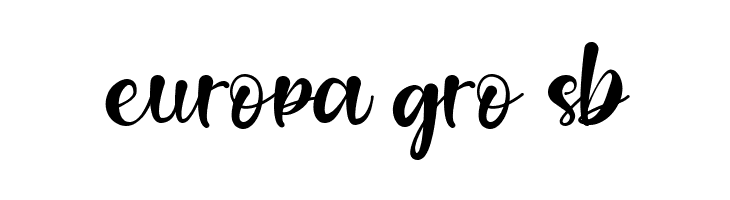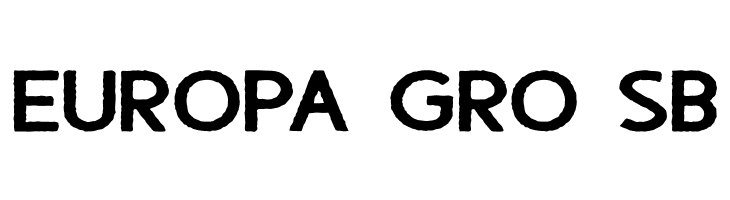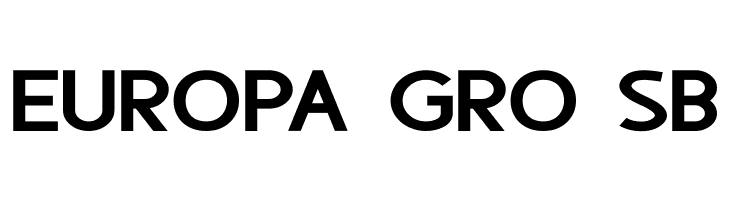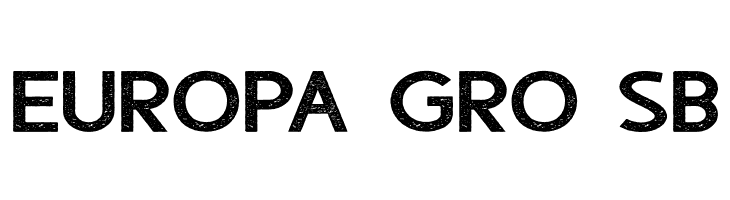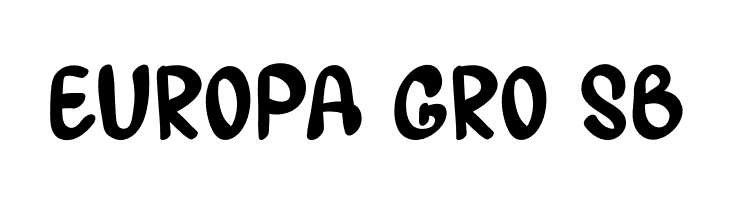
A dynamic, expressive handwritten font with fluid strokes and a natural flow.
A bold, playful font with rounded, hand-drawn uppercase letters.
A bold, modern sans-serif font with clean, geometric lines.
A bold, hand-drawn font with a rough, distressed texture.
A bold, textured font with a vintage, distressed stamp-like appearance.
A bold, textured font with a handcrafted, vintage feel.
A bold, textured font with a rugged, hand-crafted appearance.
A dynamic and energetic script font with a handwritten feel.
A playful, bold font with rounded edges and a whimsical style.